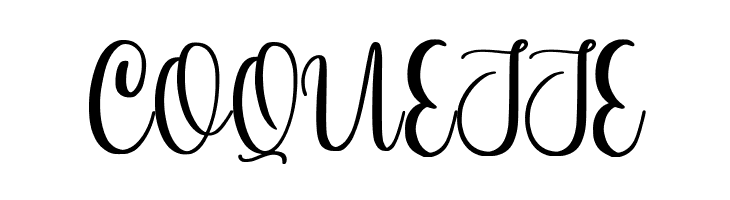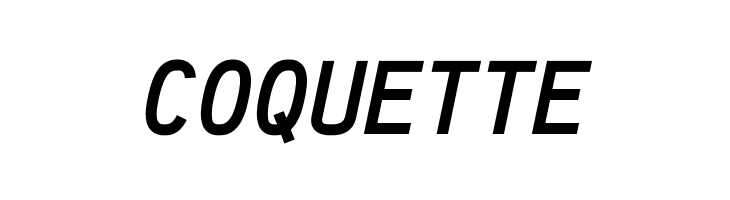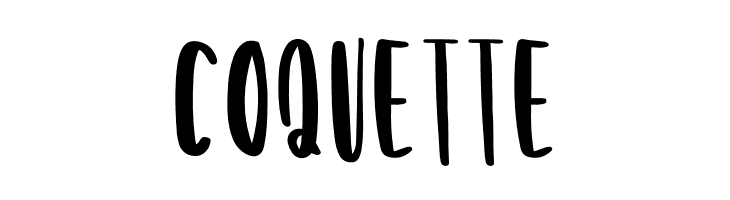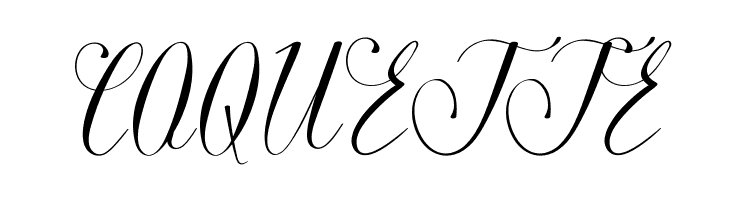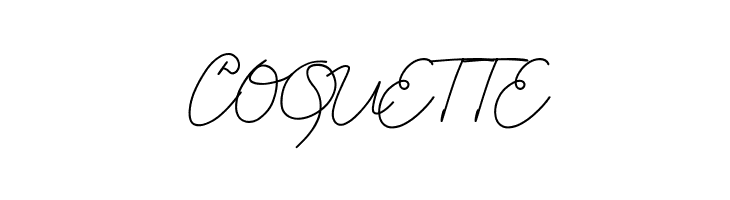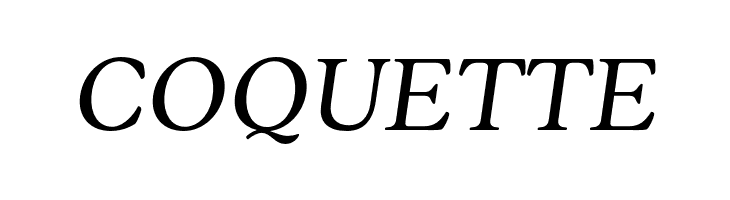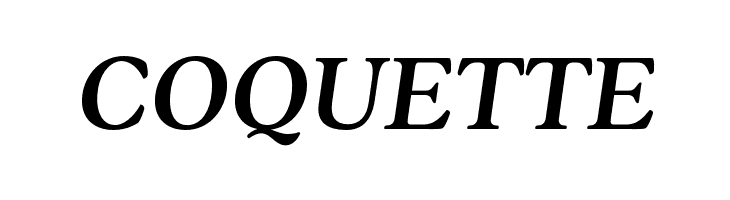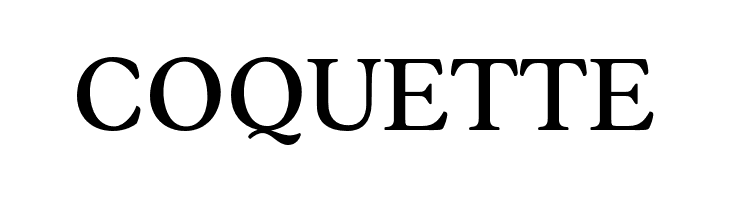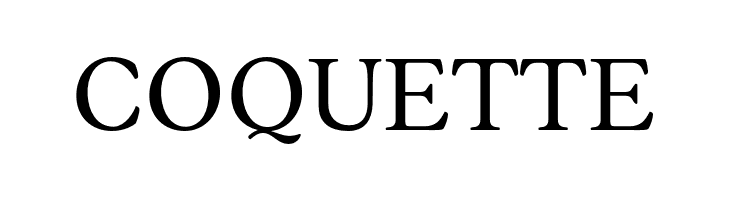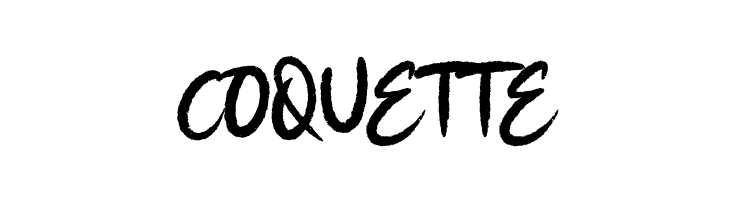
A graceful and elegant script font with fluid, cursive strokes.
A flowing, cursive script font with elegant, interconnected characters.
A flowing, elegant script font with interconnected cursive letters.
A modern, elegant script font with flowing cursive letterforms.
A bold, playful handwritten font with rounded, slightly irregular letterforms.
A playful and elegant script font with flowing, cursive letterforms.
A dynamic, fluid script font with an elegant, handwritten style.
A lively, cursive font with a handwritten feel, perfect for creative projects.
A bold, condensed monospaced font ideal for coding and technical use.
A bold, italicized, and condensed font with a modern and dynamic style.
A sleek, condensed italic font with a modern and dynamic style.
A modern, monospaced font with a clean, condensed design ideal for technical applications.
A dynamic and elegant script font with a flowing, handwritten style.
A lively, calligraphic font with a modern, handwritten style.
A dynamic calligraphic font with elegant, flowing strokes.
A modern, geometric font with a double-line structure and bold, angular design.
A modern, geometric font with a unique cut-out style and consistent line thickness.
A modern, geometric sans-serif font with balanced proportions and versatile applications.
A bold, geometric font with a modern and edgy style.
A bold, classic serif font with strong, pronounced strokes and well-defined serifs.
A bold, italic serif font with elegant curves and strong strokes.
A classic serif font with elegant and balanced characters.
A medium-weight, italic serif font with elegant curves and moderate contrast.
A classic serif font with elegant strokes and refined details.
An elegant serif font with a classic italic style and refined details.
A semi-bold, italic serif font with a classic and elegant style.
A classic serif font with semi-bold weight, offering elegance and readability.
An elegant script font with flowing, calligraphic strokes.
An elegant, flowing script font with smooth, connected strokes.
A bold, handwritten font with a playful and artistic style.
A hand-drawn, artistic font with an organic and casual style.
A classic serif font with decorative swashes and intricate detailing.
A classic serif font with decorative flourishes and intricate details.
An elegant cursive font with smooth, flowing lines and a sophisticated style.